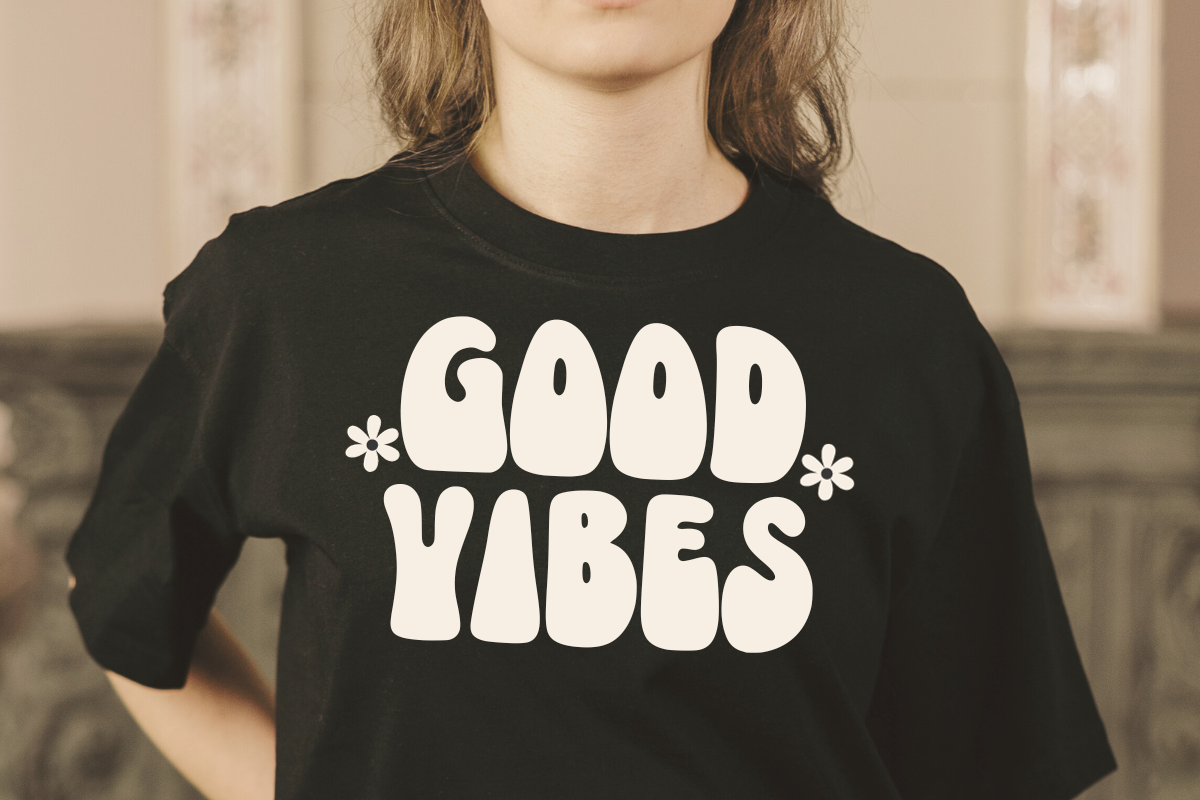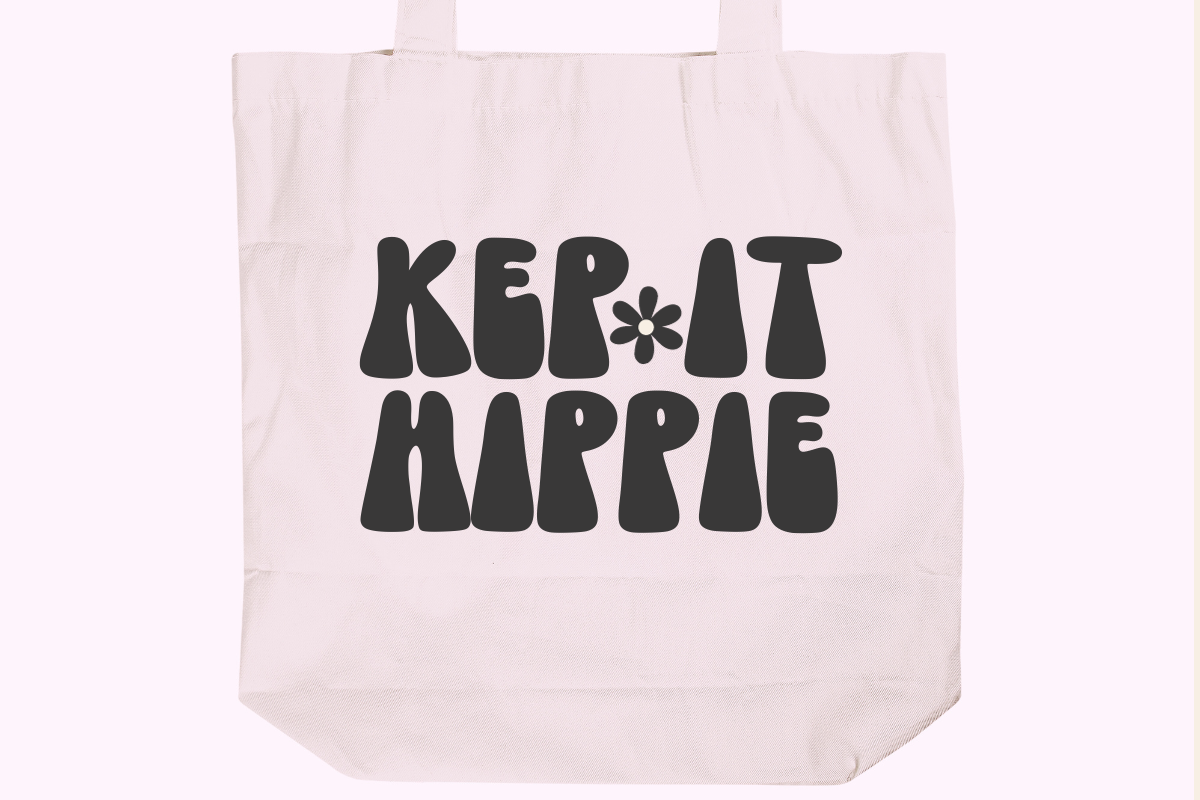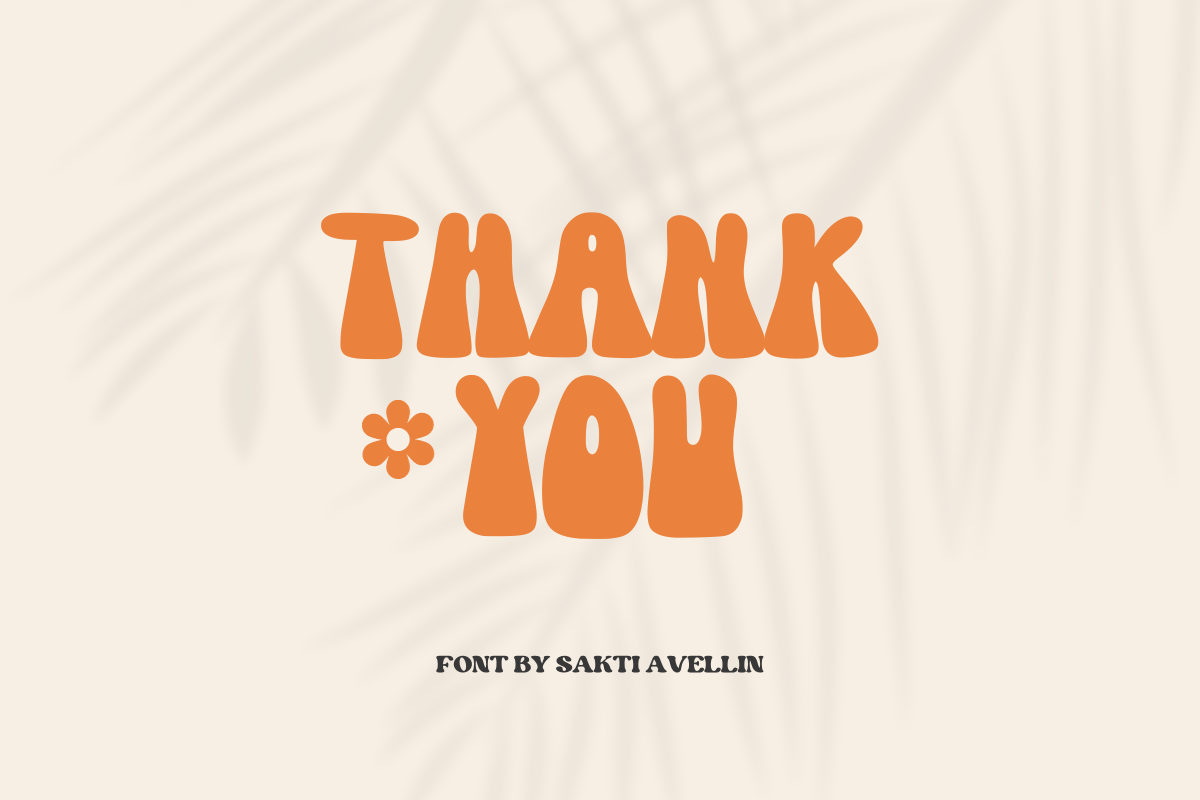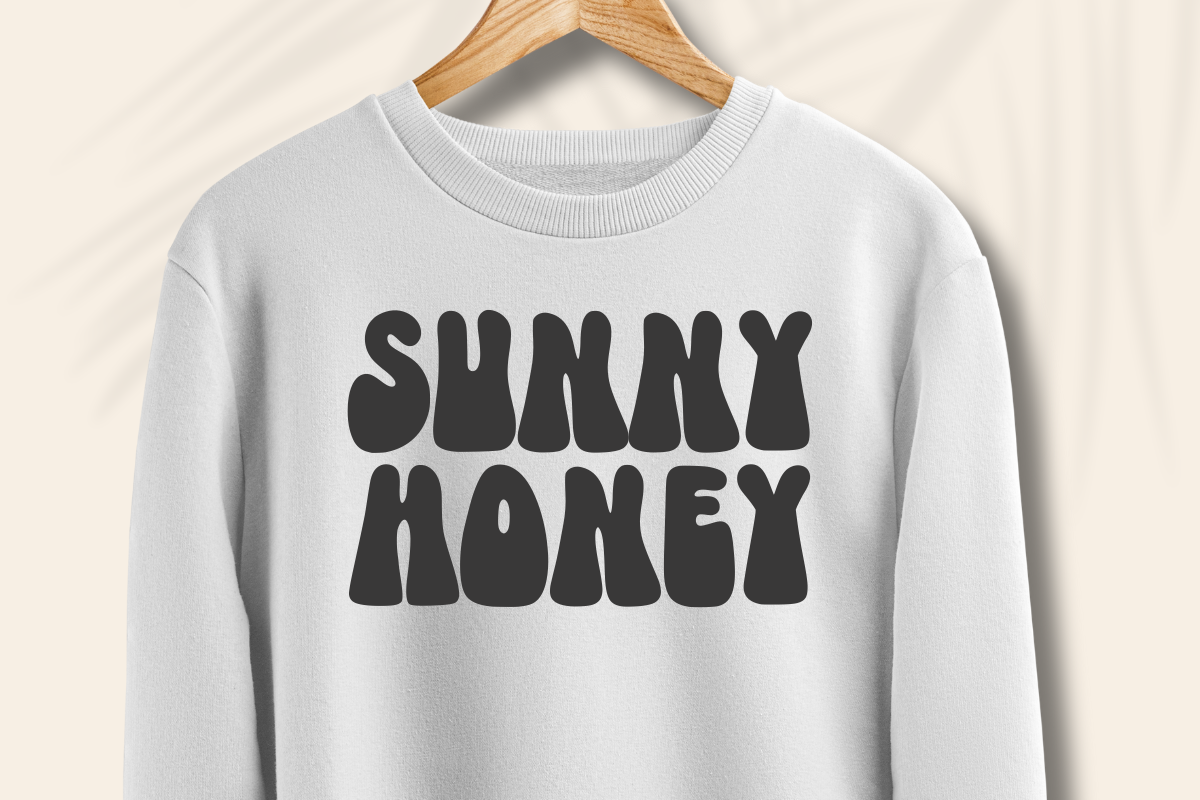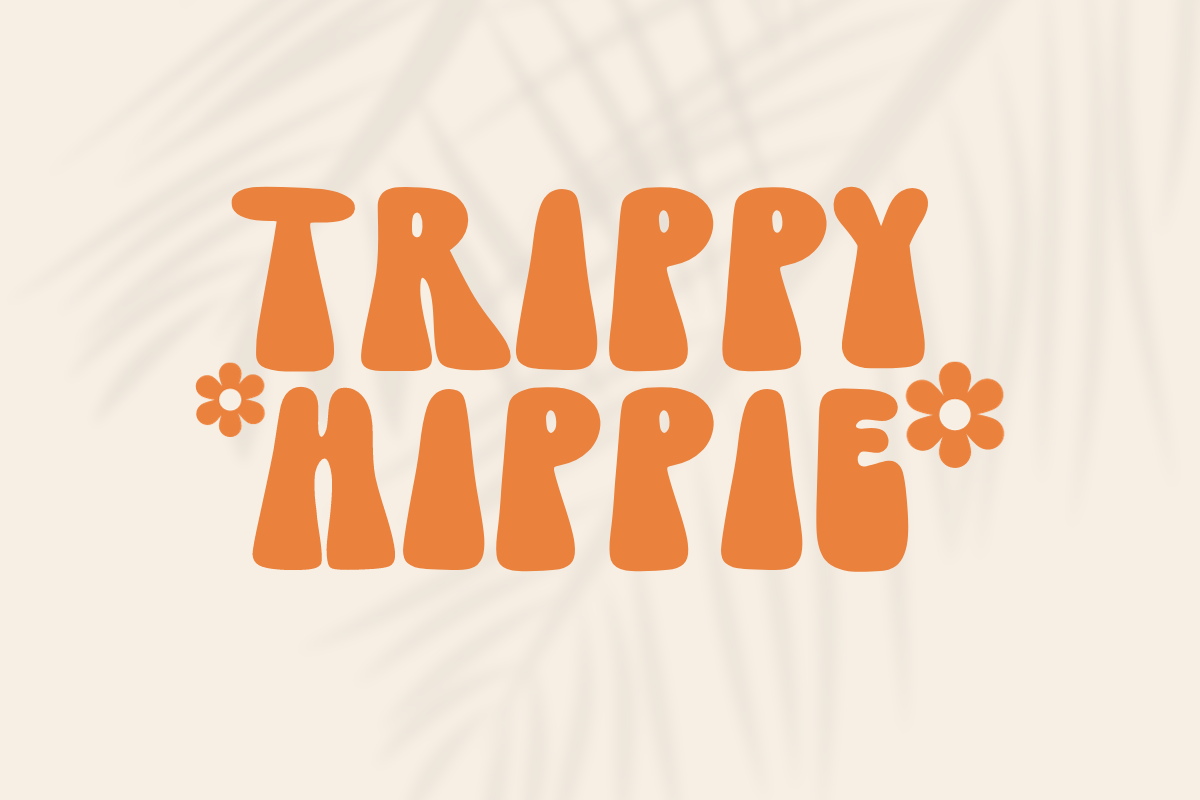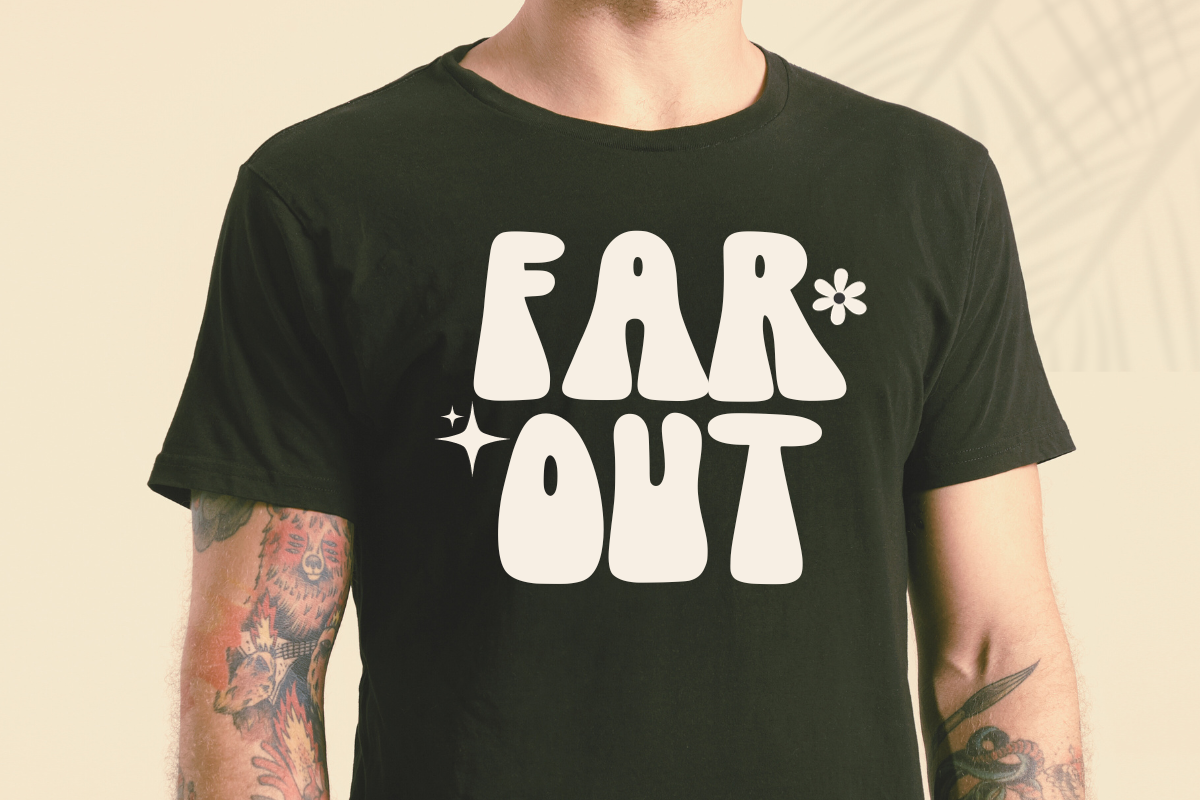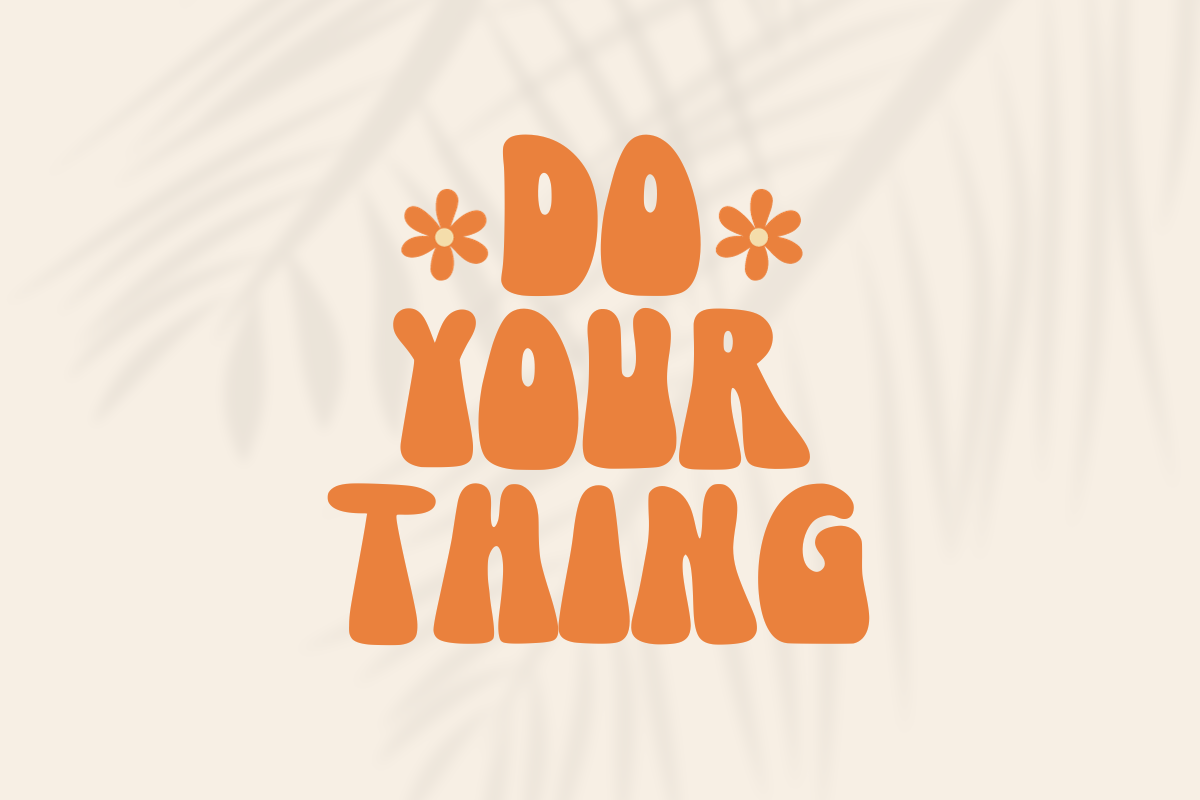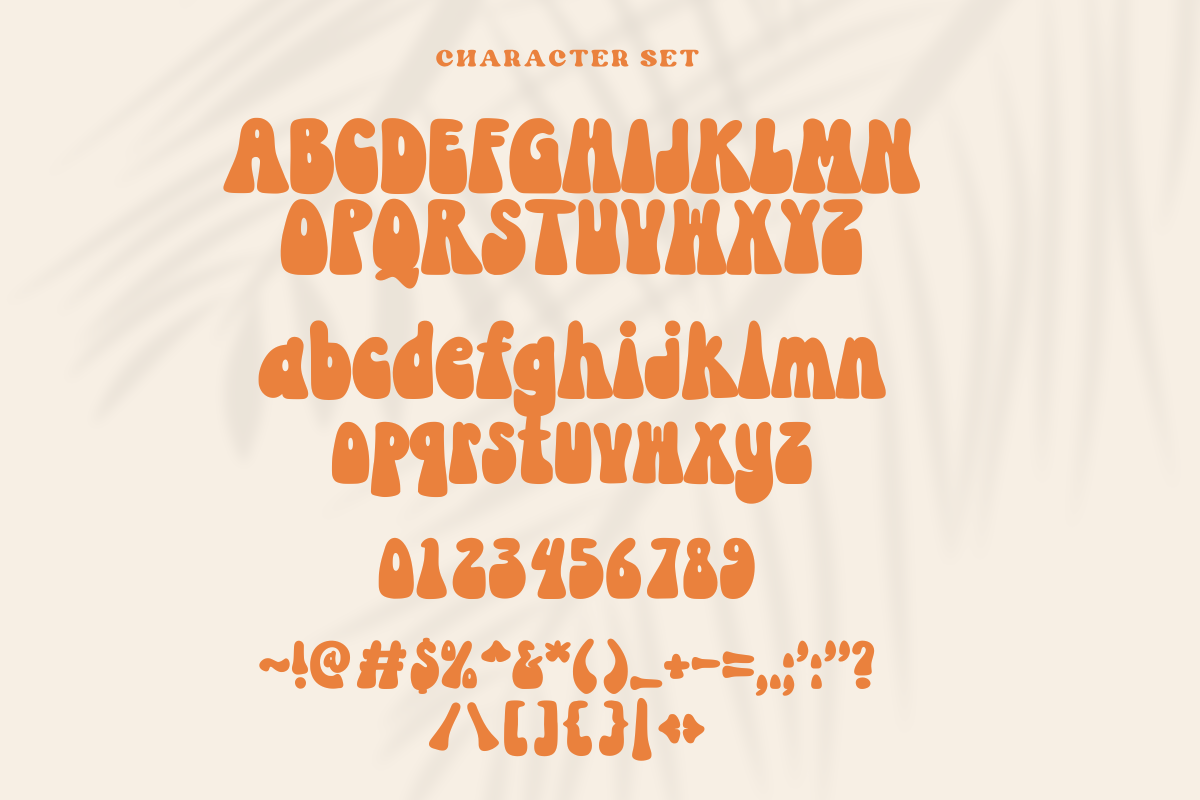
Only Good
Incorporate a touch of vintage flair to your designs with the 'Only Good' font. Exuding a retro-groovy psychedelic coolness, this font perfectly encapsulates a bygone era while maintaining contemporary appeal. Ideal for making an impression on quotes, it adds a layer of fun to t-shirts and tote bags, breathes charm into greeting cards, and sips in style on mugs. 'Only Good' transcends boundaries, infusing every design element it graces with an unmatched whimsical allure. Experience a blast from the past with a fun twist that makes a bold statement. Lift your designs from ordinary to extraordinary with 'Only Good', the font that dares to be delightfully different!